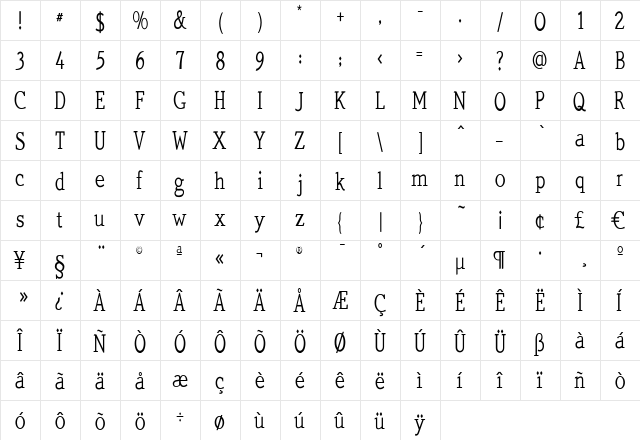
QuickType Condensed Regular
Design Context for QuickType Condensed Typeface
QuickType Condensed is a composed and adaptable typeface that performs quietly and consistently across a wide range of design contexts. The condensed width makes it efficient for tight spaces without sacrificing legibility.